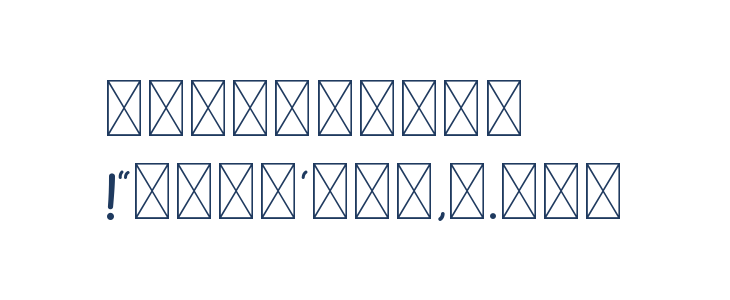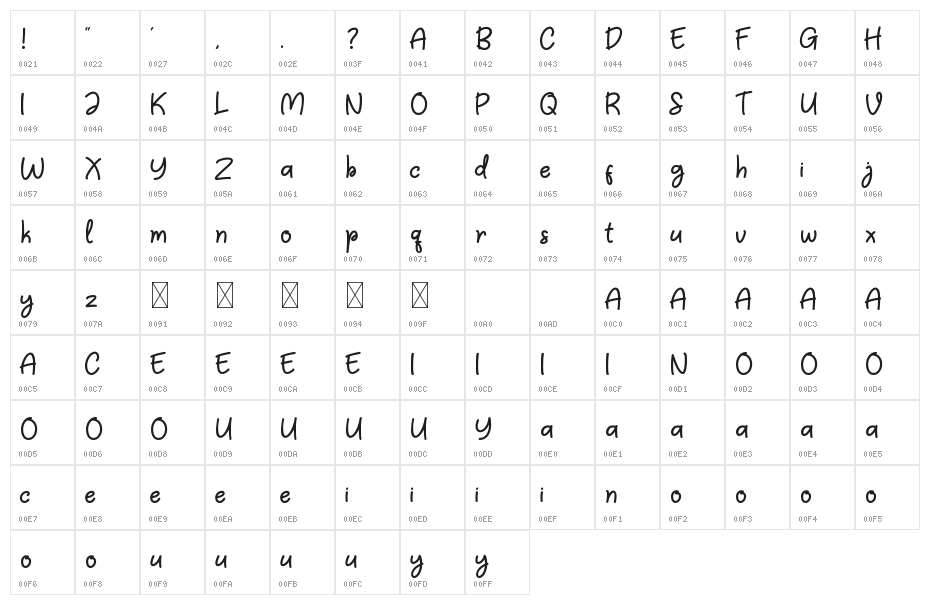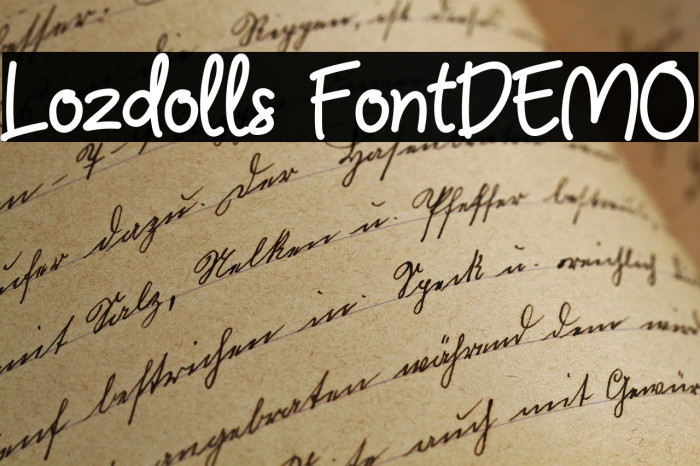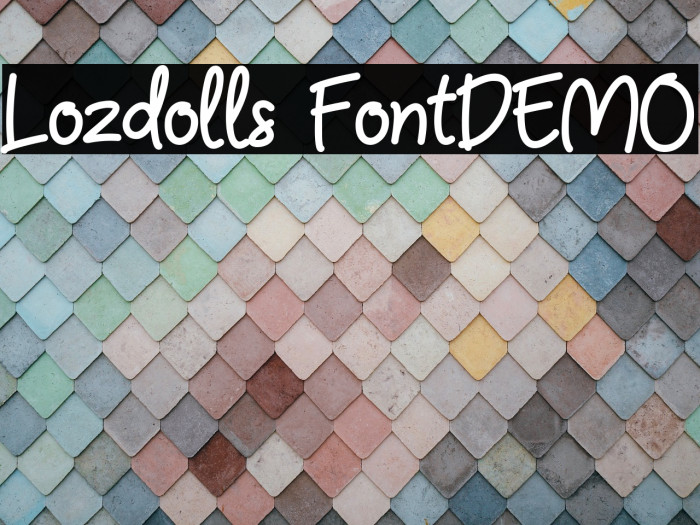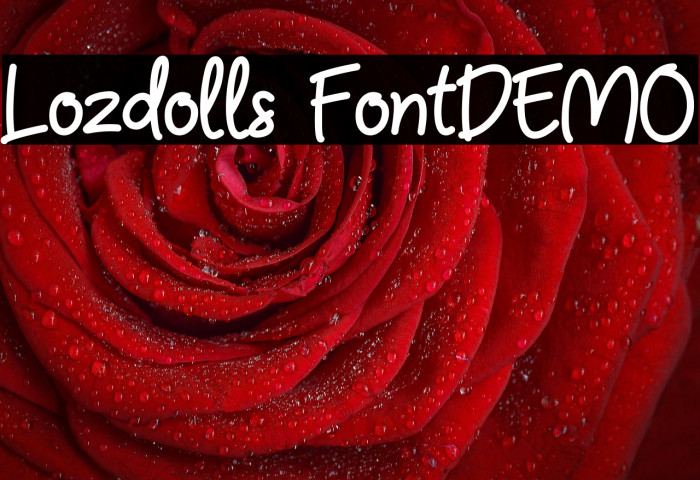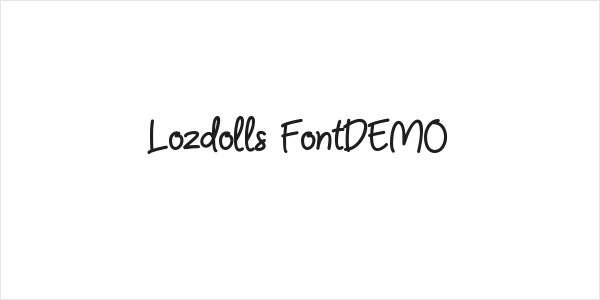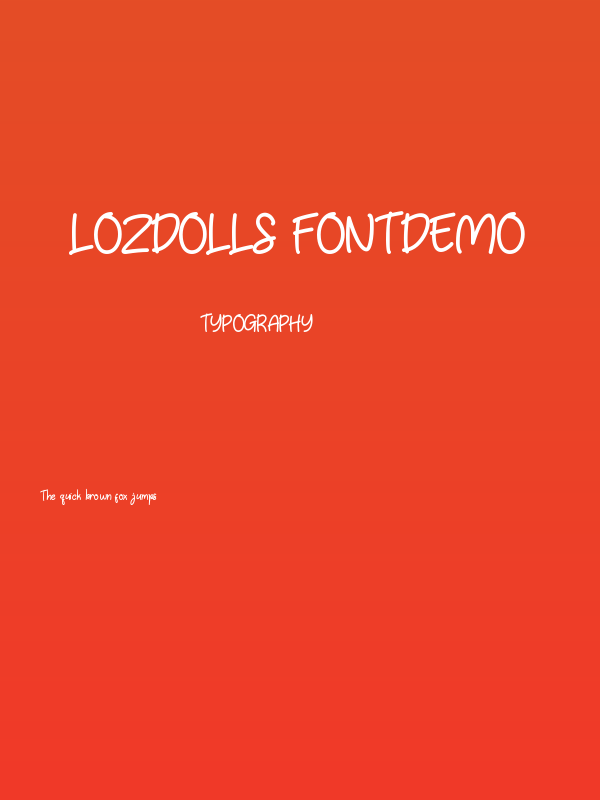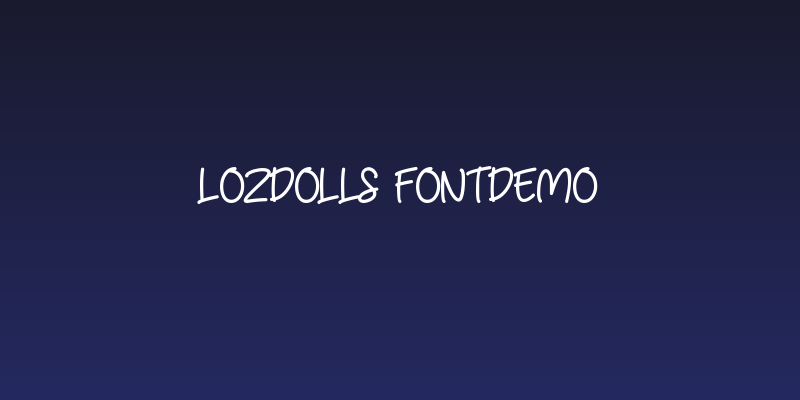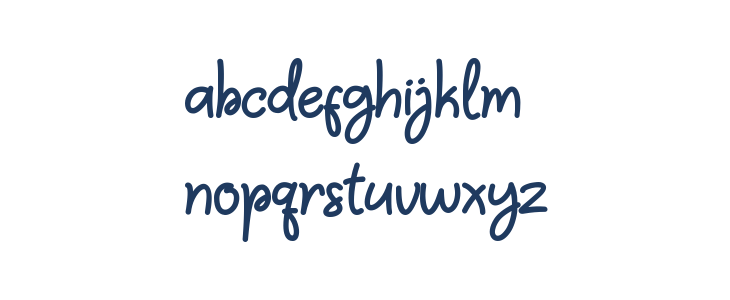
Lozdolls FontDEMO Font
Lozdolls FontDEMO Description
This playful and energetic font features a handwritten style with a casual and friendly appearance. The letters are slightly slanted, giving a dynamic and informal feel. The strokes are smooth and consistent, with rounded edges that enhance its approachable nature. The uppercase and lowercase letters maintain a cohesive look, while the numbers and special characters blend seamlessly with the overall design. This font is perfect for projects that require a personal touch, such as invitations, greeting cards, or playful branding.